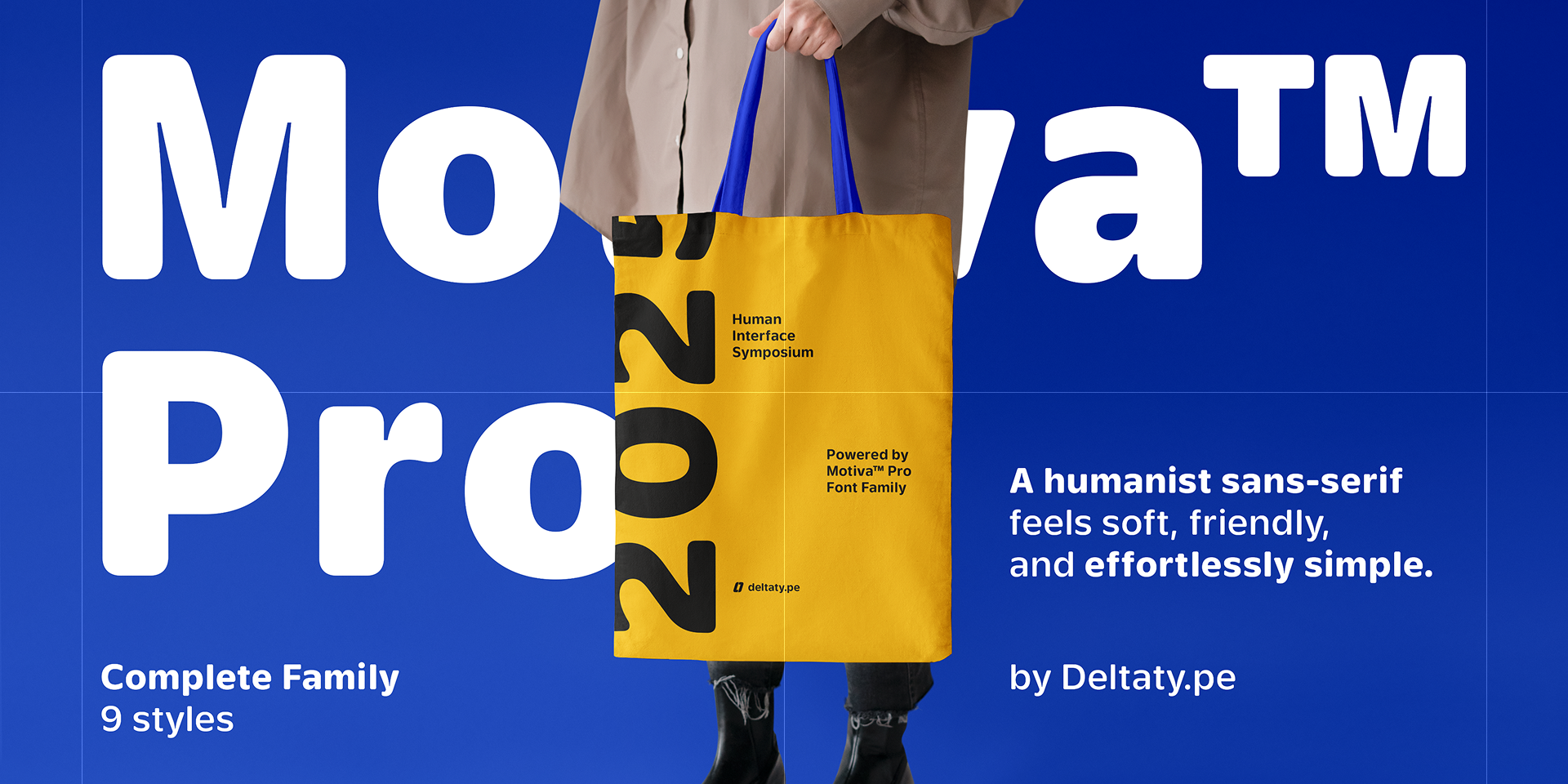
Motiva Pro
Designed by Kwanchai Akkaratammagul and Phatcharaphat Chatthawatthanathon, Motiva Pro is a sans serif font family. This typeface has nine styles and was published by Deltatype.
A humanist sans-serif feels soft, friendly, and effortlessly simple.
Meet Motiva™ Pro — a soft-spoken yet confident humanist sans-serif that brings warmth and clarity to your digital world. With its gently rounded edges and balanced proportions, Motiva™ Pro feels approachable, friendly, and quietly intelligent.
Designed with digital interfaces in mind, Motiva™ Pro performs seamlessly across your favourite design tools and development environments. It follows the standard CSS font-weight system with nine carefully crafted weights, making it an ideal choice for UI design and front-end deployment.
Supporting over 140 languages, including Thai, Motiva™ Pro bridges the emotional gap between human and digital—inviting a more human touch to every pixel. Simple, sincere, and designed to feel just right.